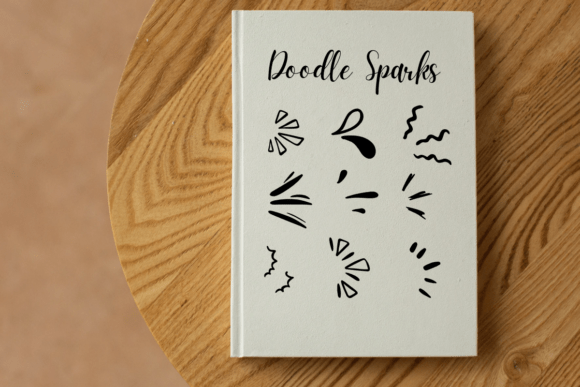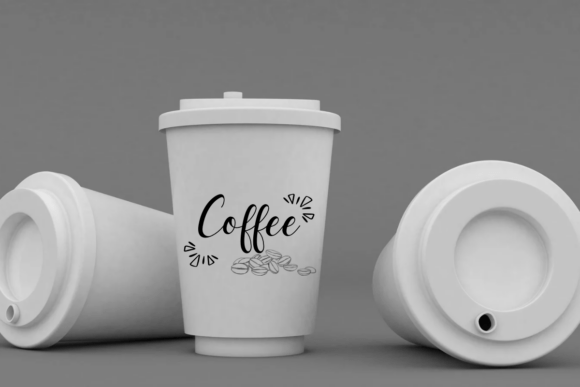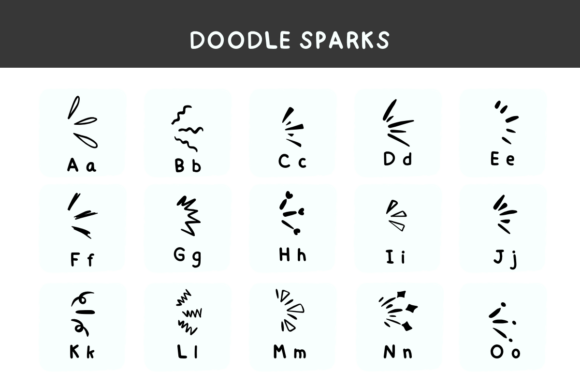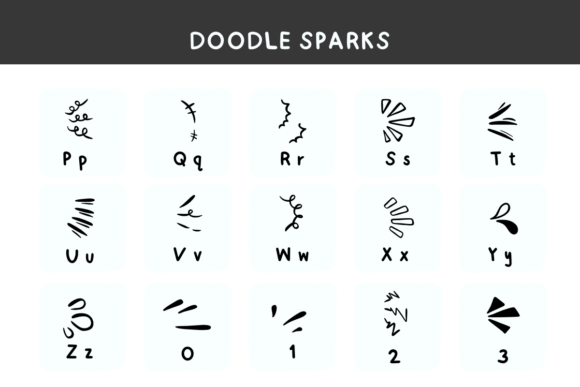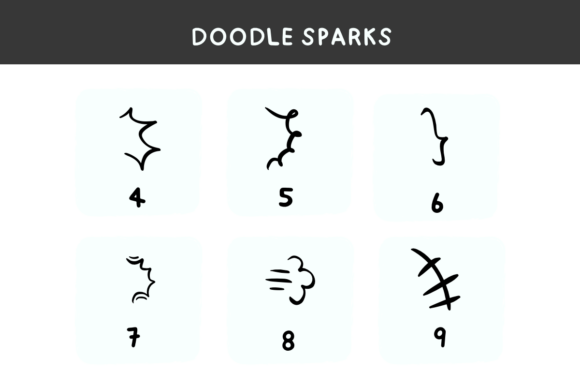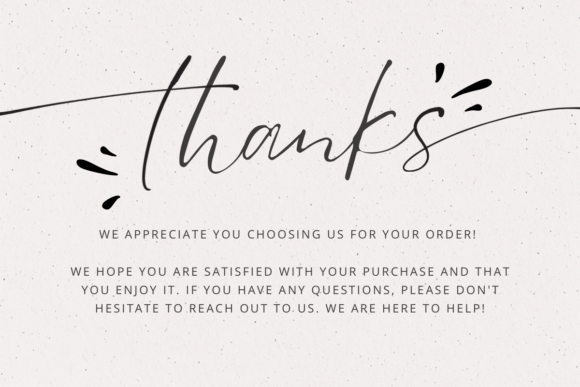
Unlock Your Inner Artist with Doodle Sparks Font
Have you ever sat down with a blank page, a blank mind, and a pen, only to be met with a burst of creativity? The scribbled lines, the random doodles, and the playful flourishes that bring your ideas to life. It’s in these moments that we tap into our artistic side, and it’s exactly this kind of creative energy that Doodle Sparks Font is designed to capture.
This artistic dingbats font is more than just a tool – it’s a spark that ignites your imagination, inspiring you to push the boundaries of design. Whether you’re a seasoned pro or a design newbie, Doodle Sparks Font is the perfect companion to elevate your creative game. With its versatility and whimsical charm, it’s no wonder why designers swear by this font to add a unique touch to their designs.
Doodle Sparks Font Key Features
- Unique Characteristics: Doodle Sparks Font features a unique, hand-drawn style with playful doodles and sparkles, adding a touch of whimsy and creativity to any design.
- Character Set: The font includes a comprehensive character set, including uppercase and lowercase letters, numbers, punctuation marks, and special characters.
Doodle Sparks Font Review
Overall, I think Doodle Sparks Font is a fun and quirky addition to any design project. ✨ The font is highly customizable, with plenty of options to adjust the style, size, and color to fit your needs.
Some of the features that really stand out to me include:
- High level of customization
- Unique and playful style
- Works well for titles, headings, and even body text
However, there are a few limitations to be aware of:
- Some characters may not be as well-formed as others (⚠️)
- Not suitable for formal or professional projects
- Can be overwhelming if used too extensively
Overall, I think Doodle Sparks Font is a great choice for designers looking to add some personality to their projects. While it may not be perfect, its unique style and high level of customization make it a valuable addition to any design toolkit.
Tips for Getting the Most Out of Doodle Sparks
Use Doodle Sparks font for creative and playful designs, such as invitations, party decorations, and children’s books. You can also use it to add a whimsical touch to your typography.
Doodle Sparks font is perfect for:
- Whimsical illustrations and graphics
- Handwritten-style typography
- Quirky and playful branding
Alternatives to Doodle Sparks Font
Doodle Sparks Font is a playful, hand-drawn font used for various design purposes. However, for designers looking for alternatives, here are a few options:
Great Vibes Font is a modern, cursive font designed for headings and titles. It has a relaxed, casual feel that works well for creative and design-focused projects. Great Vibes Font is more formal than Doodle Sparks Font and has a more consistent style.
Pacifico Font is a beautiful, elegant script font that works well for titles, headings, and body text. It has a relaxed, beachy vibe that’s perfect for travel, lifestyle, and wellness projects. Pacifico Font is more refined than Doodle Sparks Font and has a softer feel.
Alex Brush Font is a elegant, hand-drawn script font designed for headings and titles. It has a sophisticated, high-end feel that works well for luxury and fashion projects. Alex Brush Font is more polished than Doodle Sparks Font and has a more refined style.
Q: What is the recommended font size and line spacing for the Doodle Sparks Font?
We recommend using a font size between 12-24 points for body text and a line spacing of 1.2-1.5 times the font size. This will ensure optimal readability and balance in your designs. You can adjust these settings to suit your specific design needs and preferences.